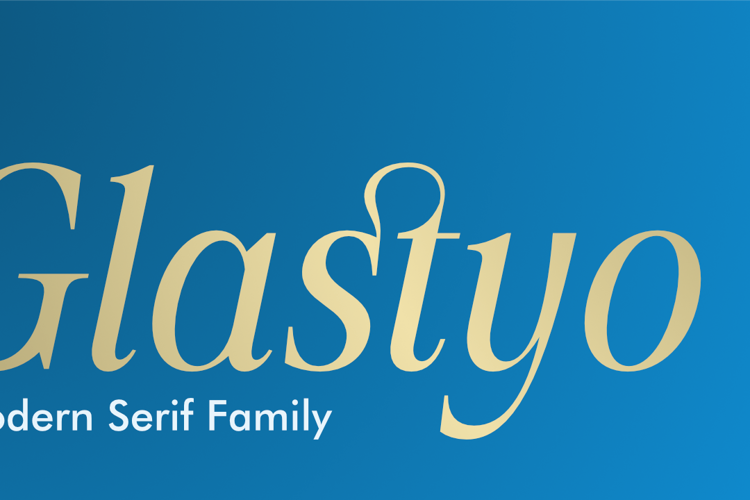
ZIA Glastyo Font
Medium Italic Style
ZIA Glastyo is a contemporary, elegant modern serif typeface designed by ZIA Creative Studio. Combining smooth curves, distinctive high-contrast serifs, and expressive character alternates, it strikes a perfect balance between sleek modern aesthetics and timeless sophistication. Designed for editorial setups, high-fashion identities, and luxury brand layouts.